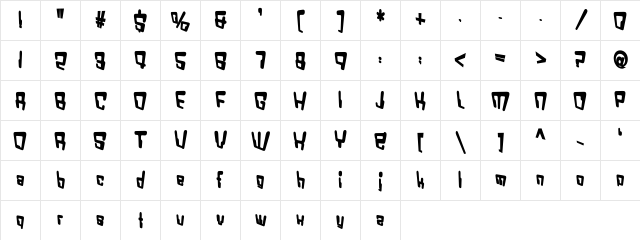
VTC Bad DataTrip Bold Free Font
VTC Bad DataTrip Bold
Designer: WolfBainX
Design Context for VTC Bad DataTrip
VTC Bad DataTrip is a composed and adaptable typeface that performs quietly and consistently across a wide range of design contexts. Its bold stroke weight gives it real presence on the page.